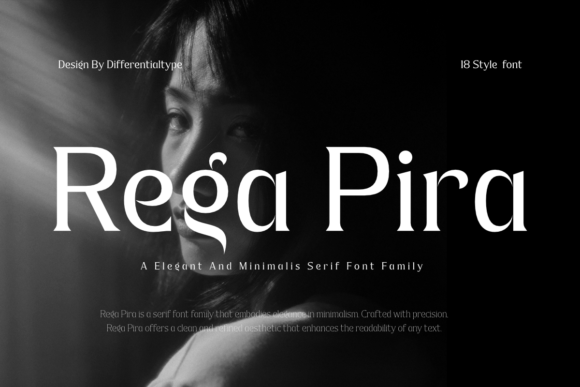
Introducing Rega Pira: The Epitome of Elegant Minimalism in Typography
In the world of typography, the quest for the perfect font is a never-ending journey. Designers and typographers continually seek typefaces that not only convey a message with clarity but also add an aesthetic value to the design. It is in this pursuit of excellence that Rega Pira emerges as a beacon of elegance and minimalism. This serif font family, crafted with precision and a keen eye for detail, offers a clean and refined aesthetic that significantly enhances the readability of any text.
The Essence of Rega Pira
Rega Pira is more than just a font; it is an experience. Its character set is meticulously designed to convey a sense of sophistication and luxury, making it an ideal choice for high-end branding and editorial design. The font’s design philosophy revolves around the concept of minimalism without compromise. Every stroke, every curve, and every detail in Rega Pira is thoughtfully crafted to ensure that it not only meets but exceeds the expectations of discerning designers.
At the heart of Rega Pira’s design is its ability to balance elegance with functionality. The font’s clean lines and subtle serifs create a harmonious blend that is both visually appealing and highly legible. This balance makes Rega Pira versatile, capable of being used in a variety of design applications, from body text that requires subtlety and finesse to headlines that demand attention and make a statement.
Versatility at Its Core
One of the standout features of Rega Pira is its comprehensive range of styles. With 18 versatile styles to choose from, ranging from thin to black and including italics, designers have an extensive palette of options at their disposal. This range ensures that there is a weight of Rega Pira suitable for virtually any project. Whether the requirement is for a subtle, understated font for body text or a bold, commanding presence for headlines, Rega Pira delivers.
The inclusion of both roman and italic styles further enhances the font’s adaptability. Designers can use Rega Pira to create visual hierarchies within their designs, guiding the reader’s eye through the content with ease and sophistication. This level of versatility is not just a convenience; it is a powerful tool that allows designers to push the boundaries of what is possible with typography.
A Timeless Appeal
In an era where design trends come and go, Rega Pira stands out for its timeless appeal. Its design does not follow fleeting fashions but instead sets a new standard for typeface design. The font’s elegance and sophistication are not just contemporary; they are enduring. Rega Pira is a font that will not look dated in a few years but will continue to grace designs with its presence for years to come.
This timeless quality is a testament to the font’s versatility and the careful consideration that has gone into its creation. Rega Pira is not just a tool for current design needs; it is an investment in future designs. Its classic appeal ensures that it will remain relevant, continuing to inspire designers and enhance their creations for generations to come.
Rega Pira in Design Applications
The adaptability of Rega Pira makes it suitable for a wide range of design applications. In editorial design, its high legibility and aesthetic appeal make it an excellent choice for body text and headlines alike. For branding, the font’s sophisticated and elegant demeanor lends itself perfectly to luxury brands and companies looking to convey a sense of refinement and quality.
In digital design, Rega Pira performs exceptionally well, whether in user interfaces, websites, or mobile applications. Its clear and distinct letterforms ensure that digital content is easily readable, enhancing the user experience. For print design, the font’s precision and elegance shine through, making it ideal for high-end publications, magazines, and corporate materials.
Rega Pira is not just a serif font family; it is a statement of elegance and sophistication. Its minimalist design, coupled with a comprehensive range of styles, makes it a versatile tool for designers. Whether for high-end branding, editorial design, or digital applications, Rega Pira offers a solution that combines aesthetic appeal with functional versatility.
As the world of typography continues to evolve, Rega Pira sets a new benchmark. It embodies the perfect blend of form and function, offering designers a font that is both beautiful and practical. With Rega Pira, designers can create designs that are not only visually stunning but also highly effective in communicating their message. It is, without a doubt, a font for the ages, one that will leave a lasting impression on the world of design.